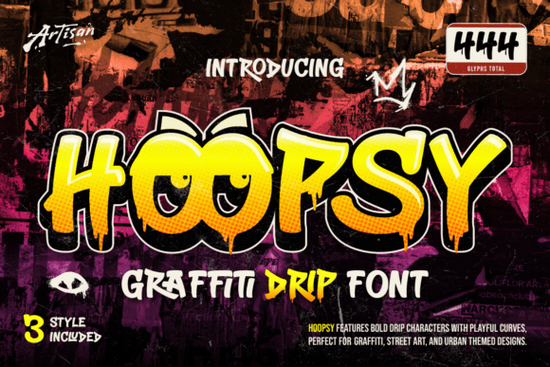
Hoopsy Font is a standout choice for anyone looking to add a dynamic, edgy feel to their designs. With its bold and playful style, this graffiti drip font draws inspiration from street art and urban culture, making it ideal for projects that need a raw, energetic look. Whether you're working on a poster, a music cover, or a streetwear design, Hoopsy brings a unique personality to your text.
The font’s thick letterforms and dripping ink details create a visual impact that immediately grabs attention. It’s perfect for designers who want to convey a rebellious or expressive vibe in their work. The playful curves and strong structure of Hoopsy make every word stand out, giving your project a distinct edge. If you’re into hip-hop visuals, graffiti art, or urban-themed branding, this font can help elevate your creative output.
Hoopsy Font fits well within the {category} category, offering a fresh alternative to more traditional typefaces. Its versatility makes it suitable for both digital and print applications. From social media graphics to t-shirt designs, this font adds a touch of authenticity and flair. It’s especially useful for those who want to create eye-catching titles that reflect a modern, streetwise aesthetic.
What Makes Hoopsy Font Unique?
Unlike standard fonts, Hoopsy combines the roughness of spray-paint lettering with the clarity of a well-designed typeface. The dripping effects add a sense of movement and spontaneity, which is hard to achieve with other fonts. This makes it a great option for projects that require a handcrafted or authentic feel. The font also works well when paired with other bold or contrasting elements, allowing for creative and visually striking compositions.
Best Uses for Hoopsy Font
Hoopsy Font is most effective when used in contexts that align with its energetic and rebellious tone. For example, it’s an excellent choice for:
- Streetwear brand logos and t-shirt designs
- Music album covers and promotional posters
- Skateboard graphics and graffiti-style artwork
- Urban-themed marketing materials and social media posts
Its bold structure ensures that even short phrases make a strong visual statement. This makes it ideal for headlines, captions, and other design elements where clarity and impact are essential. When used sparingly, it can add a powerful finishing touch to any project.
How to Use Hoopsy Font Effectively
To get the most out of Hoopsy Font, consider the following tips:
- Pair it with simpler fonts to balance the boldness and avoid overwhelming the design.
- Use it for headings or key phrases rather than long blocks of text.
- Experiment with color and background to highlight the dripping ink details.
These strategies can help maintain readability while still leveraging the font’s distinctive style. It’s also a good idea to test the font in different sizes and formats to see how it performs in various applications.
Ultimately, Hoopsy Font is a valuable addition to any designer’s toolkit, especially if you're working on projects with a street art or urban theme. Its combination of boldness and creativity makes it a versatile choice for a wide range of applications. Whether you're a professional designer or a hobbyist, this font can help bring your vision to life with a fresh, dynamic look.
Before finalizing your design, make sure to test Hoopsy in different scenarios to ensure it meets your needs. Consider how it interacts with other elements in your layout and whether it conveys the right message for your audience. With the right approach, this font can become a go-to choice for creating impactful, expressive designs.